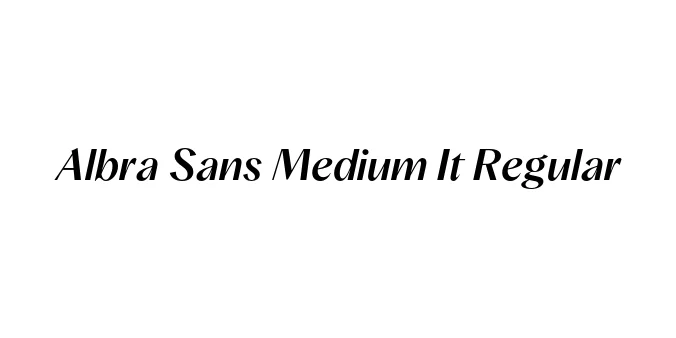
Albra Sans Medium It Regular
Designed by BumbumType (Tom Anders Watkins & Ellen Luff)
Albra Sans Medium It Regular is a sophisticated extension of the broader Albra superfamily, which was meticulously crafted to bridge the gap between high-contrast editorial elegance and modern digital functionality. Designed by the duo at BumbumType, this typeface captures a timeless aesthetic through its balanced proportions and clean, rhythmic lines. The Medium Italic weight specifically introduces a graceful slant that adds dynamic movement to text without sacrificing the clarity inherent in the Albra design philosophy.
The Sans variant of this family removes traditional serifs to provide a more minimalist and contemporary feel, making it an excellent choice for designers who require a professional yet approachable voice. Its high-contrast nature makes it particularly striking in display sizes, while the careful attention to kerning and stroke thickness ensures it remains legible in more dense blocks of text. It has become a staple for premium branding and high-end publication design worldwide.
Albra Sans Medium It Regular Best Uses
Ideal for magazine headlines and high-fashion subheaders.
Perfect for luxury brand logos and premium corporate stationery.
Adds a sophisticated and modern touch to hero sections and navigation menus.
Excellent for brochures, lookbooks, and minimalist posters.